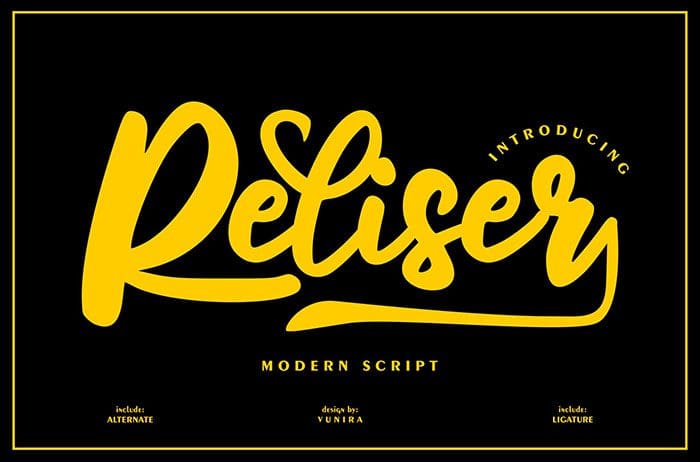
Reliser Script Font
Reliser is a modern Script Font. It features round and bold letters and as a consequence, it will enhance any design idea that you wish to develop. Thanks to Vunira Studio for sharing this font! Take a look at this portfolio for more of his stunning fonts.